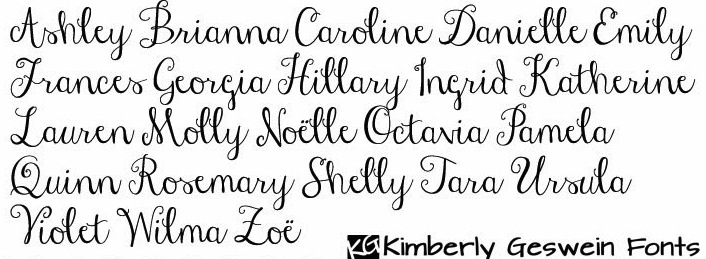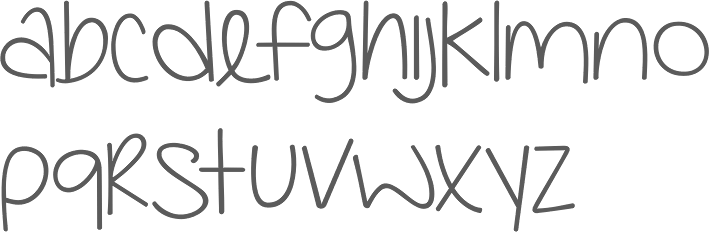
Kimberly Geswein
Born in Missouri in 1979, Kimberly moved first to Texas and later (in 2007) to China, and most recently, to Orlando, FL. She made some free fonts (often handwriting styles), and also ran a personal handwriting font service [those fonts have names that start with KGD]. MyFonts link. FontSquirrel link. Home page. Fontspace link. Dafont link. Fontsy link. Abstract Fonts link. Fontspring link. Klingspor link. Google Web Font Directory link. Creative Market link. Family home page. Her fonts, by year: